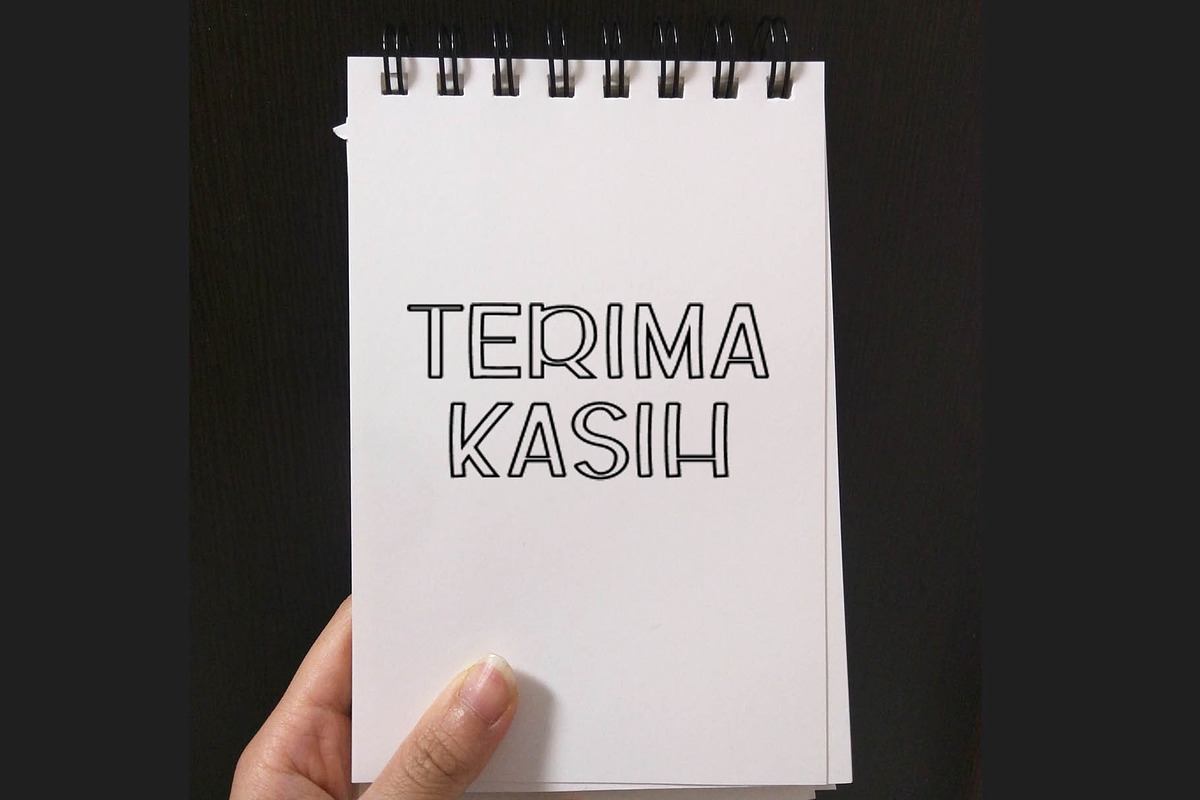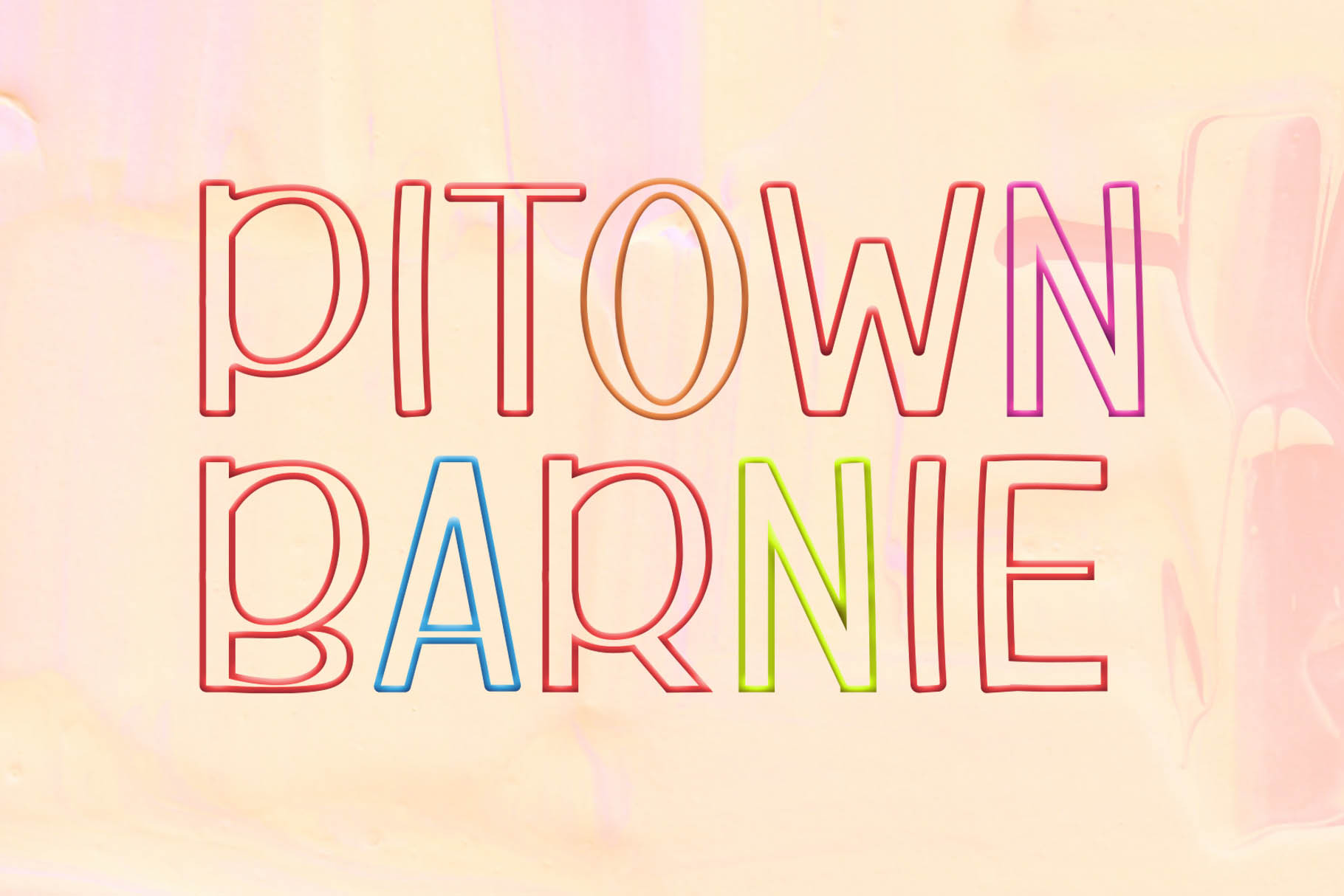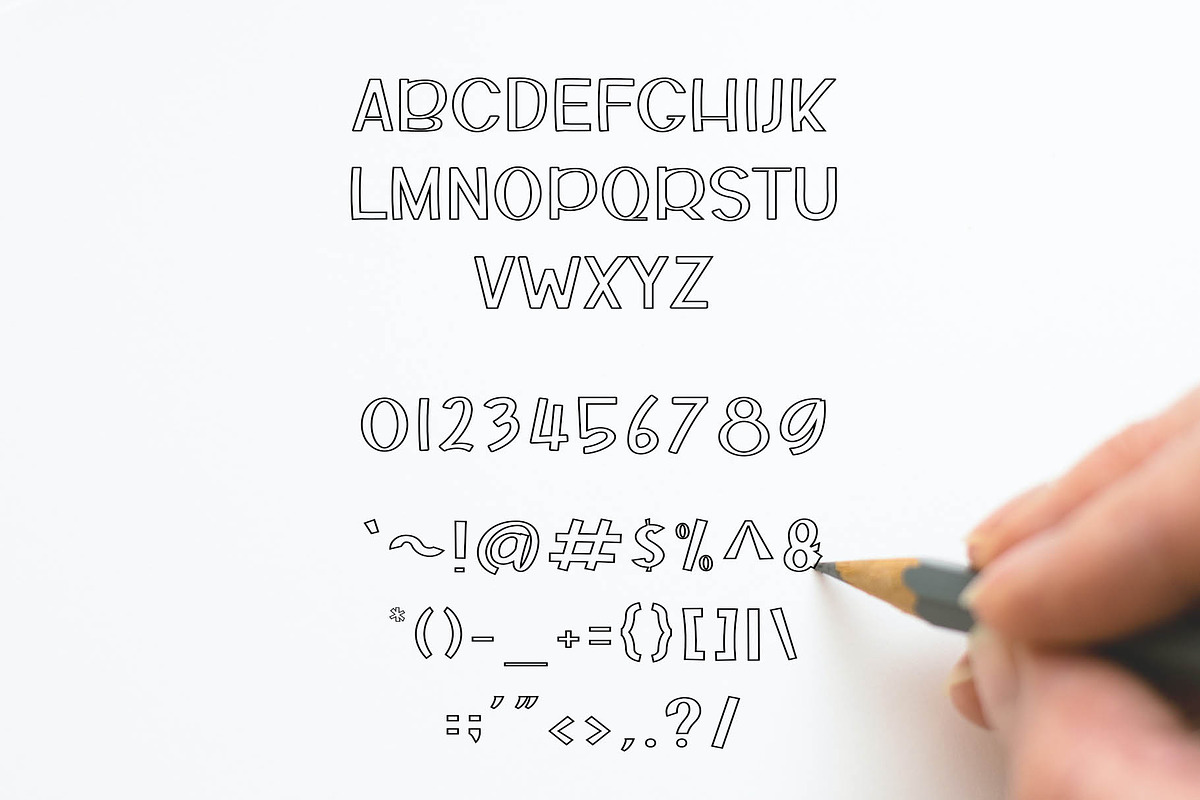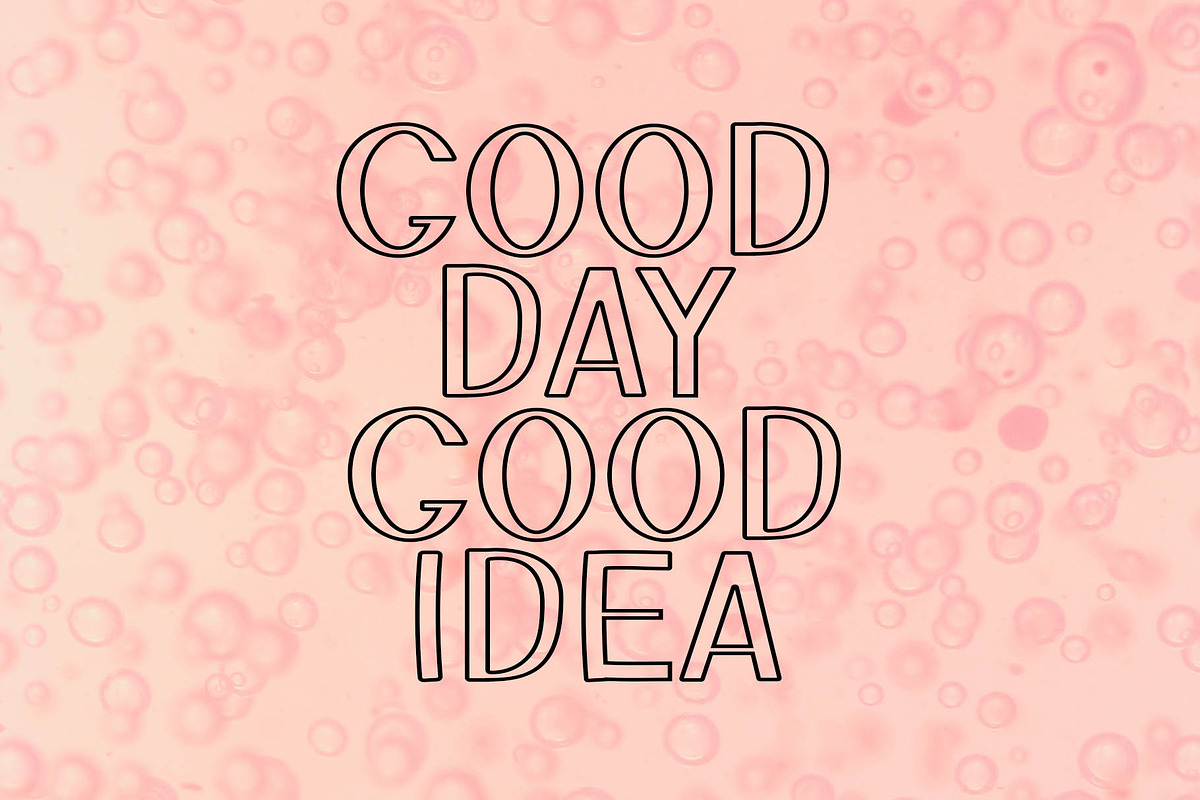
Pitown Barnie - Hollow Font
Introducing Pitown Barnie, aa unique simple font with thin and line art style. So perfect for you who needs a typeface for logo designs, magazine, social media, brochure, and many more.